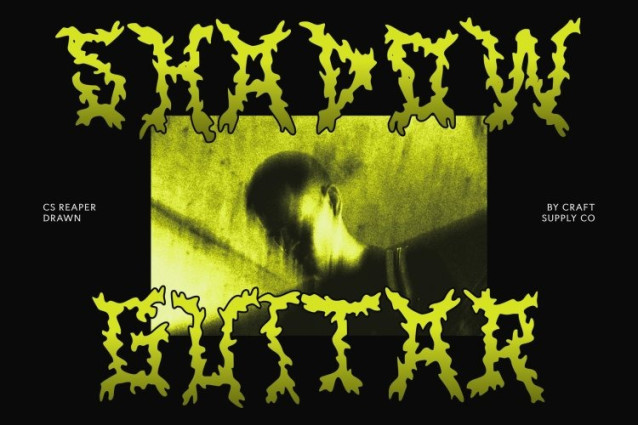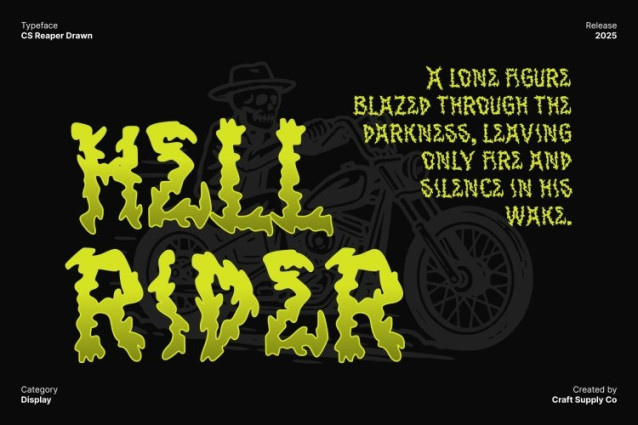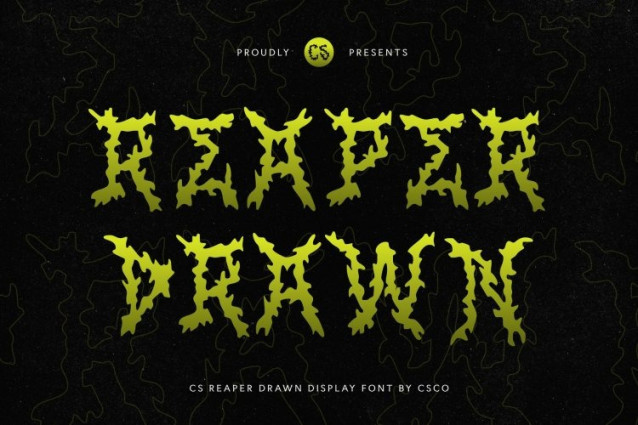
CS Reaper Drawn Font
CS Reaper Drawn Font This is a raw and aggressive black metal display font built to embody the fierce spirit of extreme music. Its jagged spikes, fractured forms, and chaotic strokes create a brutal visual impact that instantly commands attention. Every letter feels sharp, violent, and untamed, perfect for designs that embrace darkness, rebellion, and intensity.
Dark, Powerful, and Emotionally Charged Style
This font thrives on chaos each character shaped with harsh angles and unruly motion. The wild, unrestrained structure evokes the raw atmosphere of underground metal culture, making your typography feel powerful and uncompromising.
Hand-Drawn Effect for Artistic Brutality
A gritty drawn effect enhances the font with a uniquely artistic quality. This handmade texture amplifies the rough, destructive style of the letters, adding depth and raw expression. The drawn finish introduces imperfect strokes and organic irregularities, giving the font a living, breathing sense of menace and creativity.
Perfect for Band Logos, Posters, and Edgy Creative Projects
This font is the ultimate choice for band logos, album covers, concert posters, underground apparel, horror visuals, and any project seeking a dark, extreme, and artistic identity. Whether you’re designing for metal, punk, alternative culture, or intense creative themes, this font delivers raw energy with a handcrafted edge.